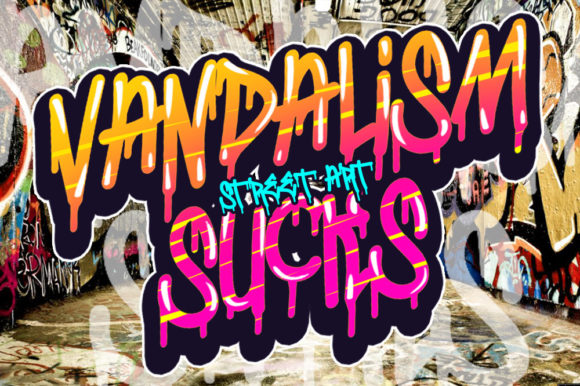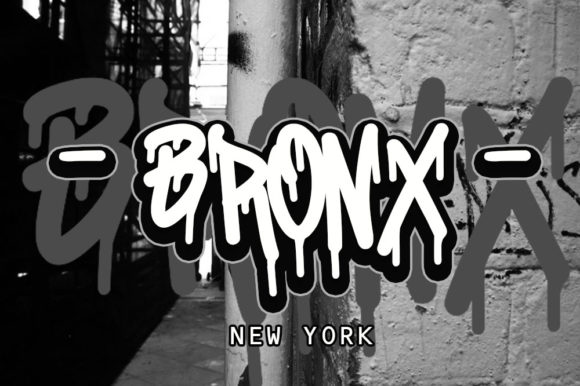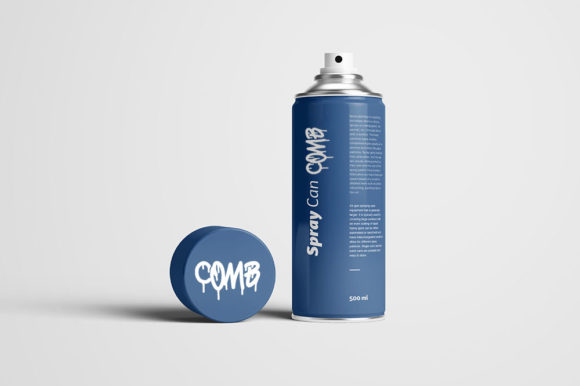
Bombing Gang Font
The Bombing Gang is a striking blackletter font. It has a graffiti style which makes it perfect for designs which need a street-art look.